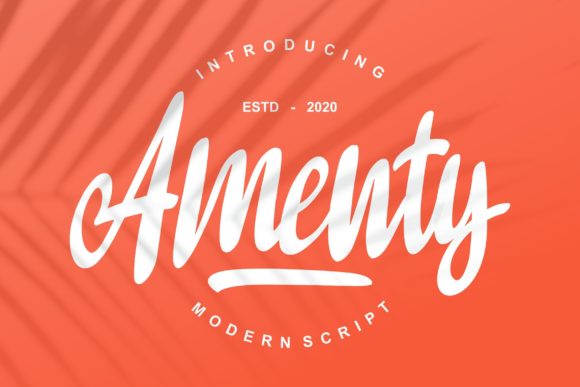
The Designer’s Delight: Amenty Script Font
I’ll never forget the time I was working on a branding project for a boutique bakery, and I just couldn’t find the right font to capture their whimsical personality. The client wanted something that felt handmade, yet elegant. That’s when I stumbled upon Amenty Script Font, and it instantly became my go-to. If you’re a designer, crafter, or creative hobbyist looking for a lovely and timeless handwritten font, you’re in the right place!
A Personal Review of Amenty Script Font
I’ve had the pleasure of working with Amenty Script Font on several projects, and here’s what I think:
- ✨ It’s incredibly versatile and can be used for a wide range of design projects, from logos and branding to quotes and social media graphics.
- ✅ The font has a unique and beautiful touch, with every letter feeling carefully crafted to create a sense of movement and fluidity.
- ✅ It’s highly legible, even at smaller sizes, making it perfect for body text or captions.
- ✨ The font comes with a range of OpenType features, including glyphs and stylistic alternates, which allow for endless customization options.
- ⚠️ Some users may find the font a tad too ornate for very short texts or headings, but I think this is part of its charm.
- 🤔 It can be a bit tricky to pair with other fonts, but I’ll get to that in a minute.
The Story Behind Amenty Script Font
While I couldn’t find any information on the font’s creator, I like to imagine that Amenty Script Font was crafted by a talented type designer who wanted to capture the essence of handwritten communication. Perhaps they drew inspiration from vintage letters, antique manuscripts, or the flowing scripts of the past. Whatever the story, Amenty Script Font feels like a labor of love – a beautiful, timeless font that brings a touch of elegance to any design.
| Font Name | Amenty Script Font |
| Author | FannanStudio |
| Is Amenty Script Font suitable for body text? | While Amenty Script Font is highly legible, it’s best suited for short to medium-length texts. For longer body text, consider pairing it with a serif font for better readability. |